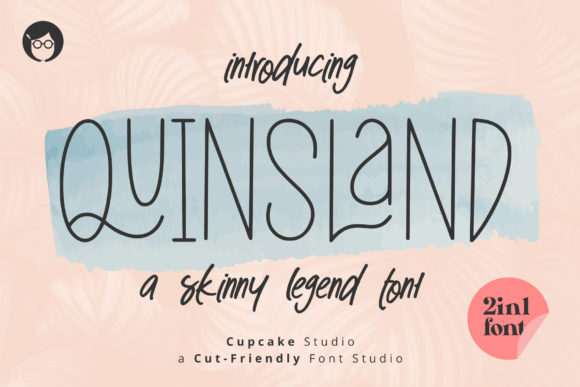
The Quinsland 2in1 Font: A Cute Display Font to Elevate Your Designs
- Quinsland is a cute display font that’s carefully handcrafted to become a true favorite.
- It looks outstanding in any context, whether it’s being used on busy backgrounds or as a standalone headline!
- The font is extremely versatile and works well for various design projects, from crafts to digital designs.
- It’s easy to read and has a friendly, approachable feel to it.
- One thing to note is that Quinsland is a display font, so it might not be the best choice for body text or smaller sizes.
- Some users might find the font a bit limited in terms of variations, but the OpenType features and glyphs make up for it.
- ⚠️ Keep in mind that the font might not work well with certain non-English characters or special symbols.
One of the standout features of Quinsland is its OpenType features and glyphs. These allow you to:
- Access stylistic alternates for varied letterforms.
- Use swashes and ornaments to add flair to your text.
- Explore ligatures for a more creative, connected look.
The Story Behind Quinsland
Quinsland was designed with love and care by a talented font designer who wanted to create a unique, versatile font for crafters and designers. The font’s handcrafted feel and whimsical personality make it perfect for a wide range of creative projects.
Q: What is Quinsland’s primary use?
A: Quinsland is a display font best used for headlines, titles, and emphasis text.
Q: Does Quinsland support non-English characters?
A: Quinsland supports a range of characters and symbols, but it might not work well with certain non-English characters or special symbols.